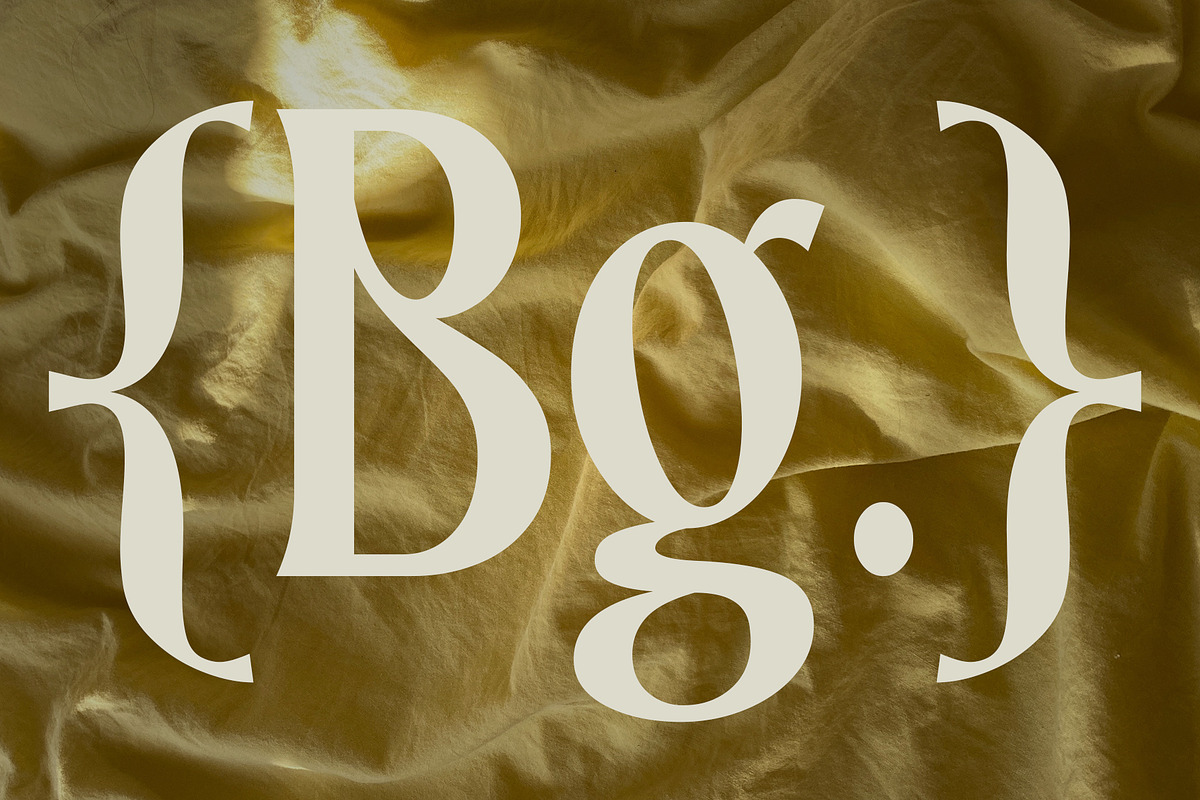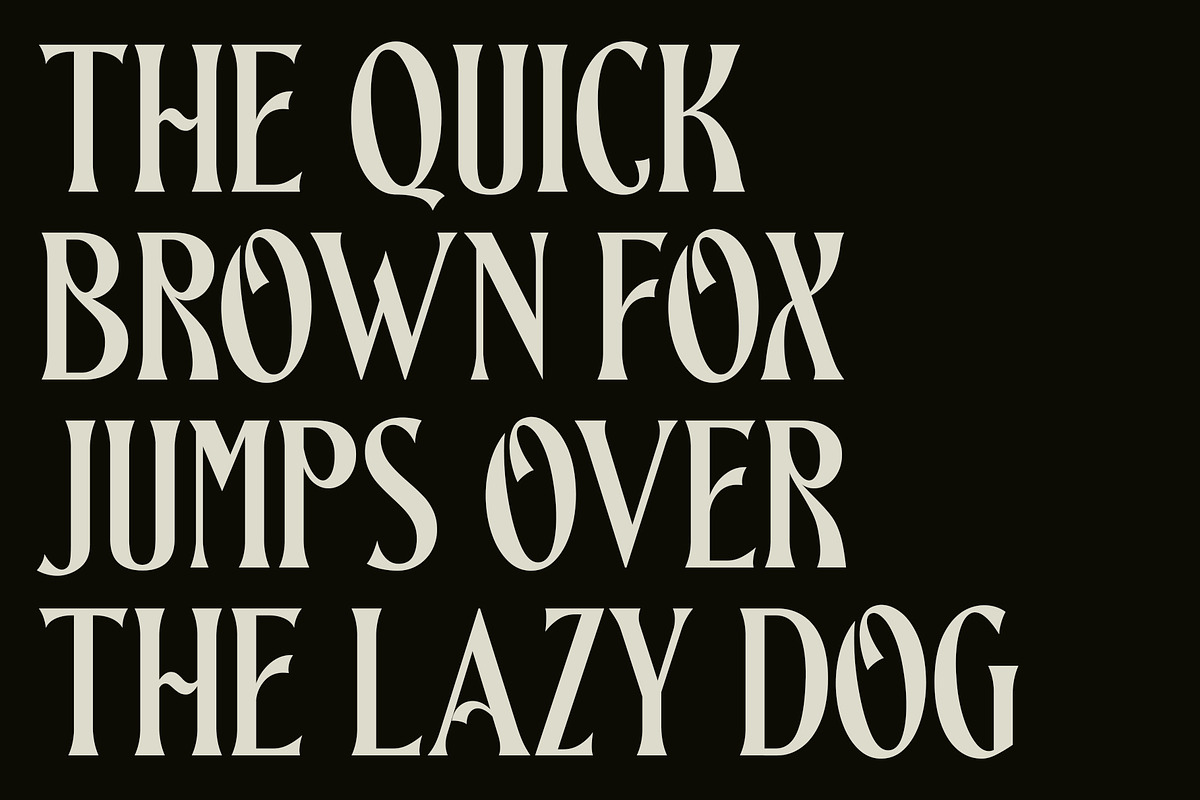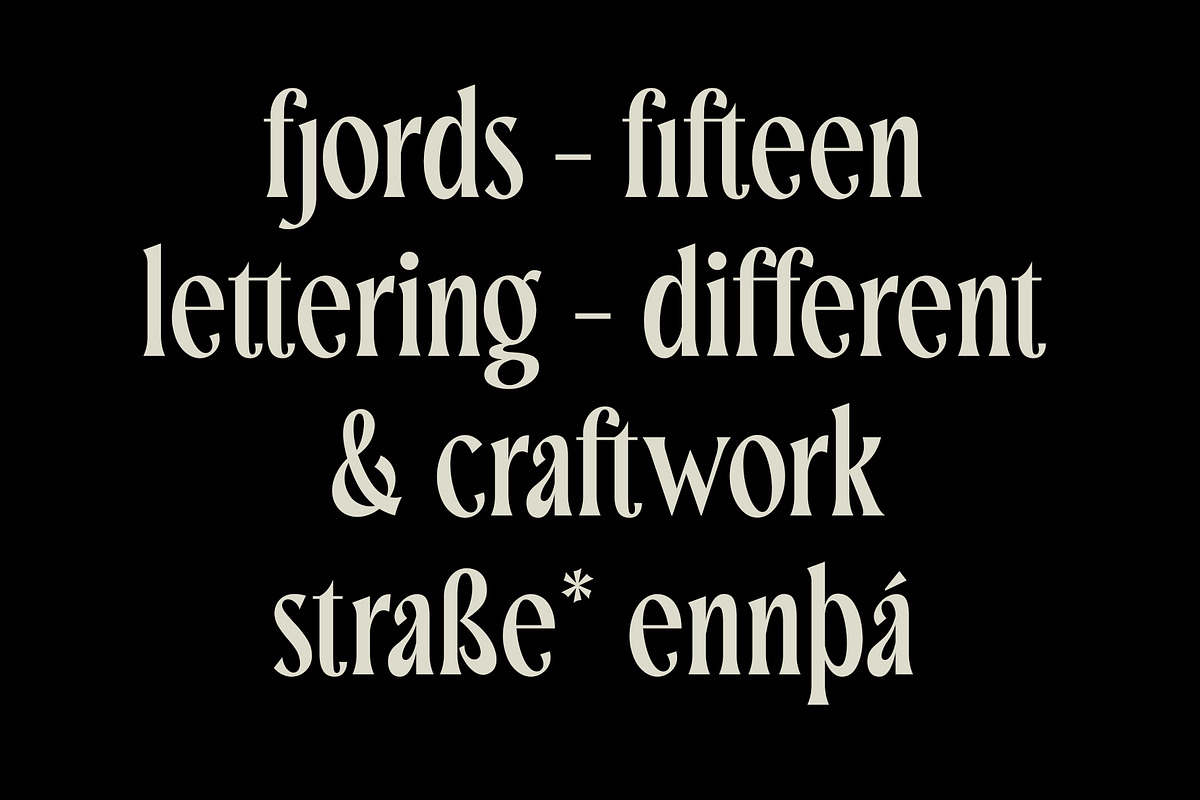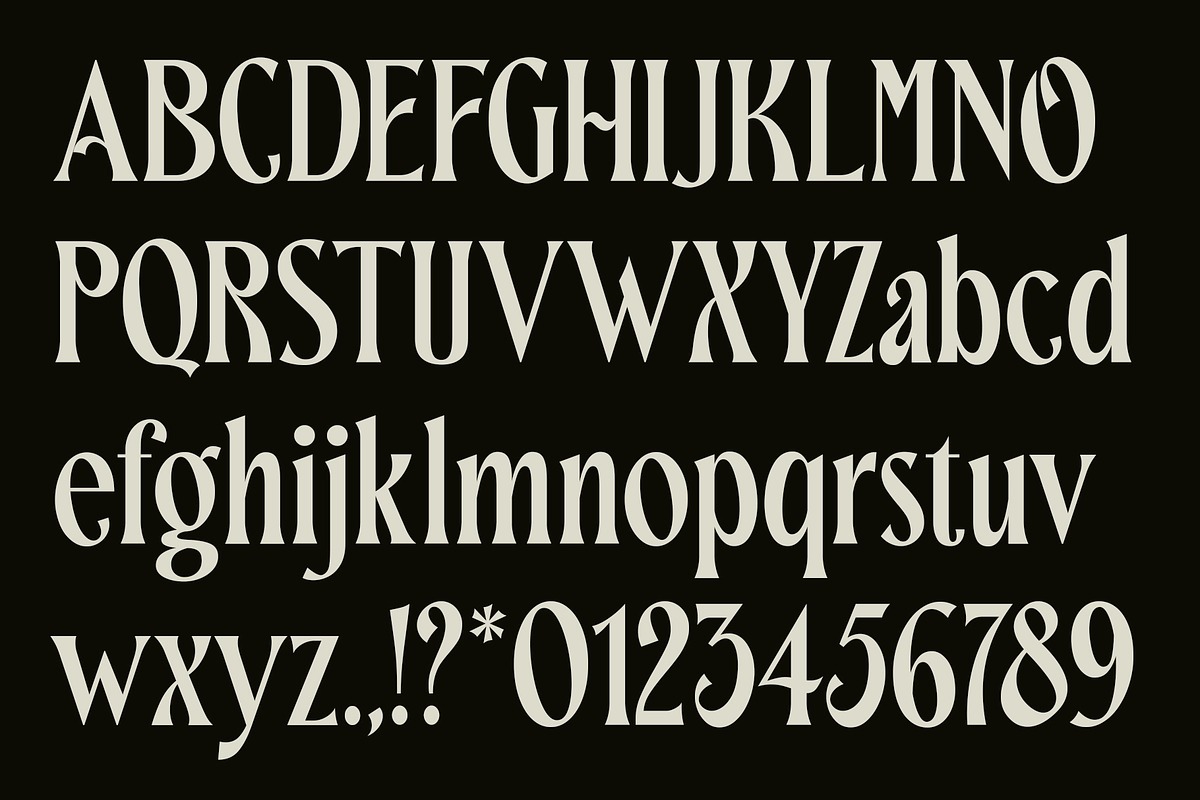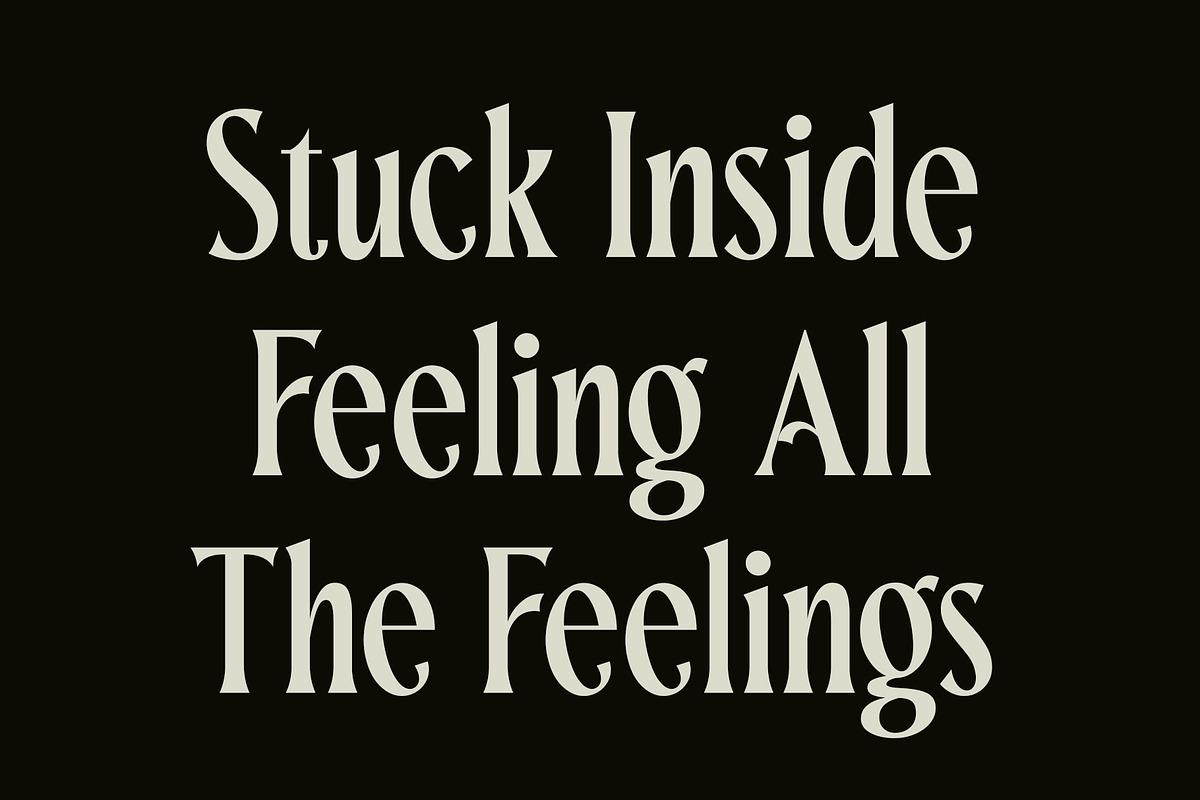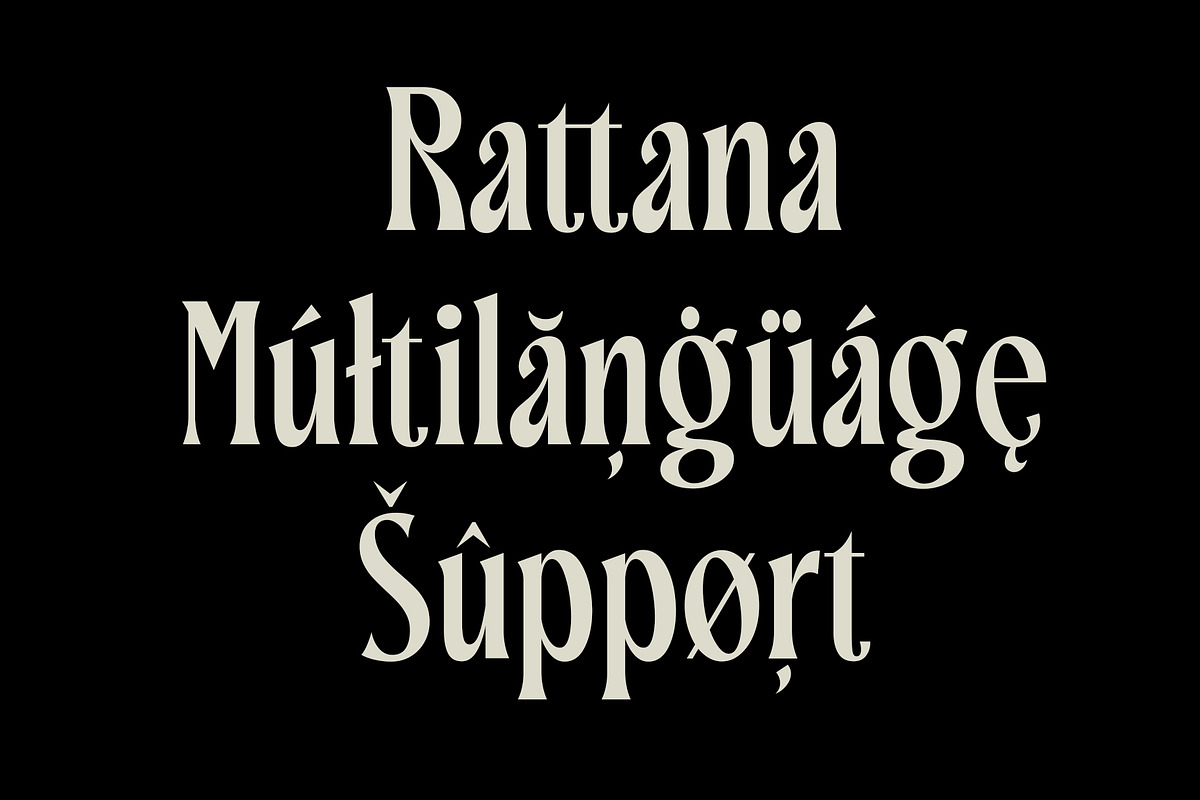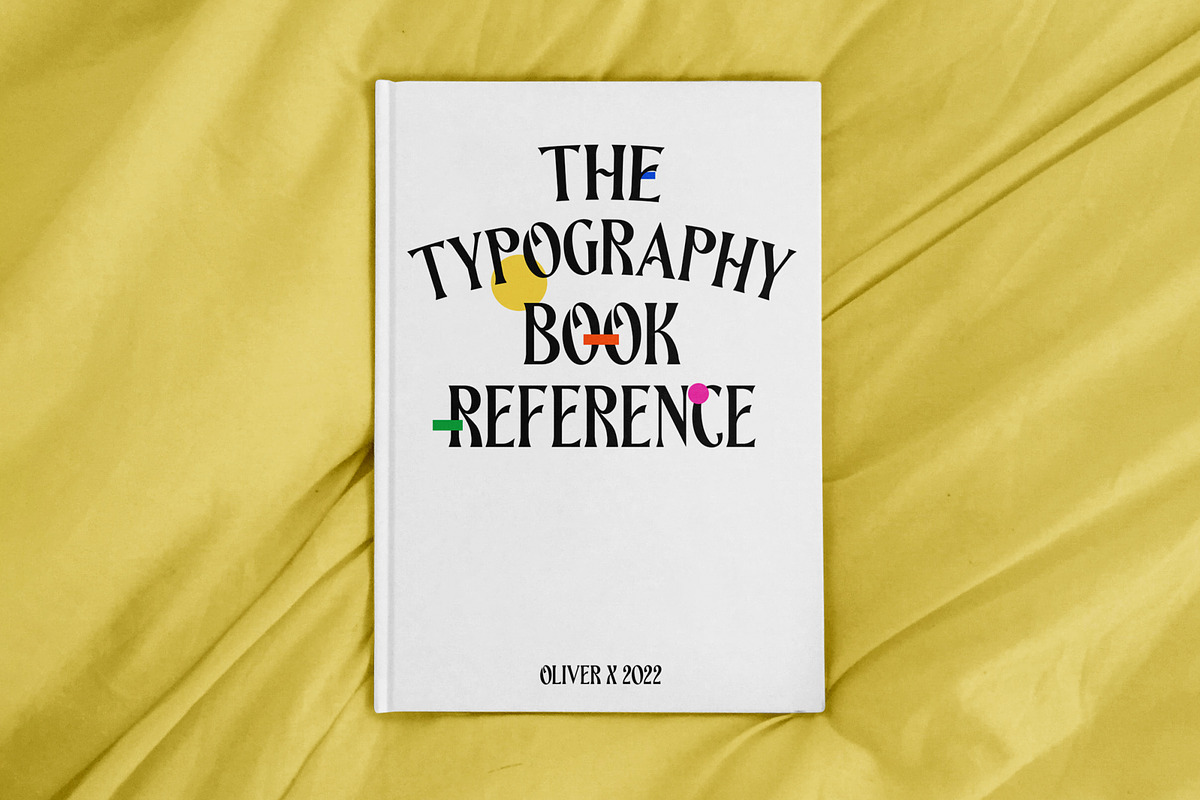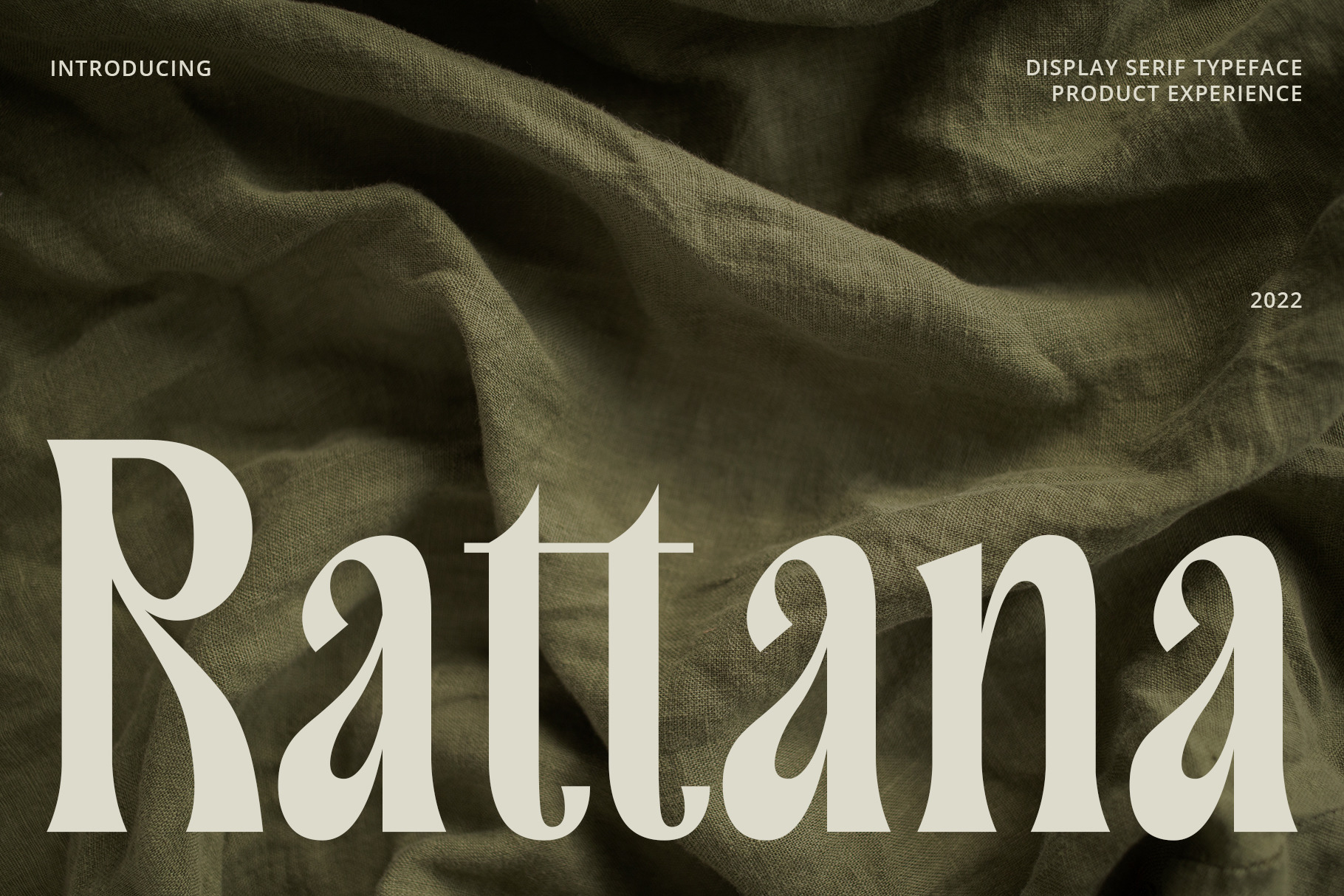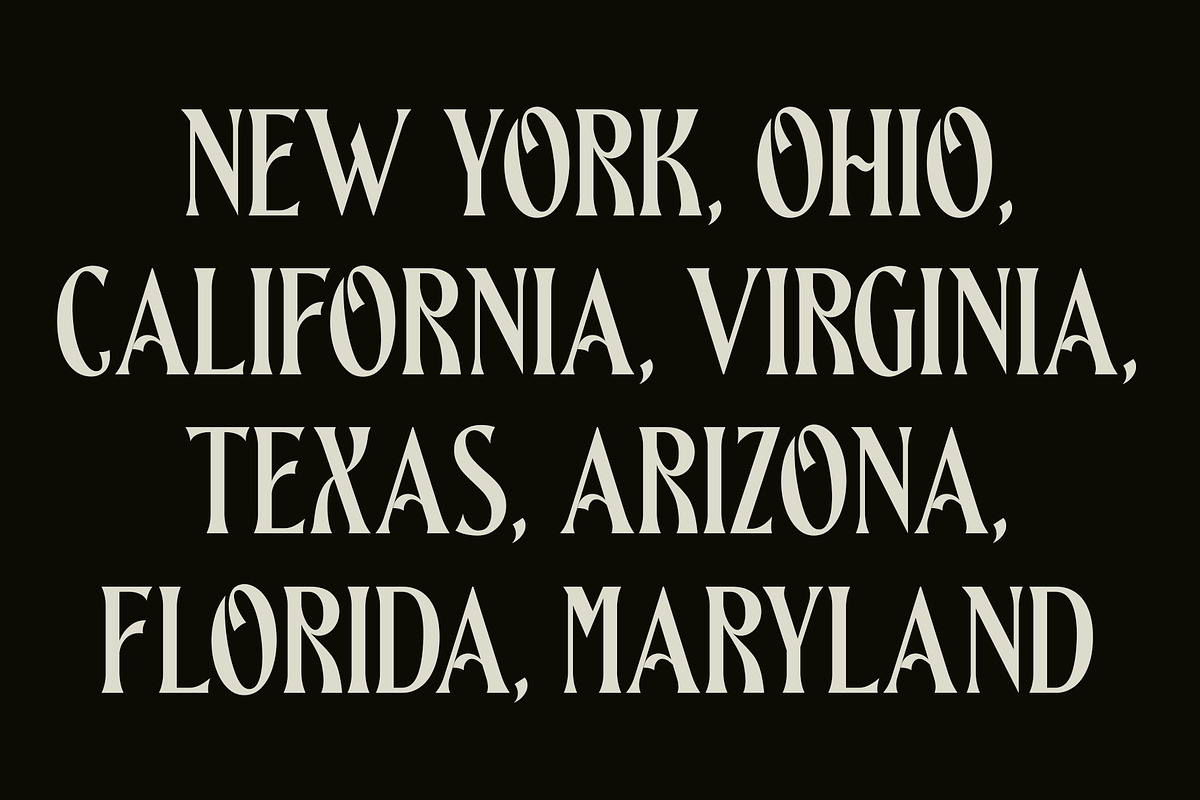
Rattana - Display Serif Typeface
Rattana is a serif display font with a classic modern style and a unique look. This font also comes with ligatures and multi-language support.
This font is perfect for your design needs such as wedding invitation, logo design, branding, social media design, book, magazine, etc.